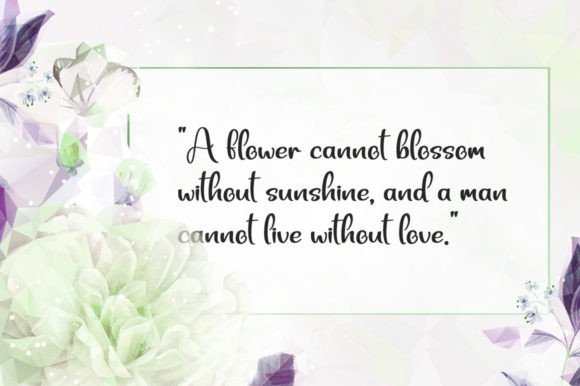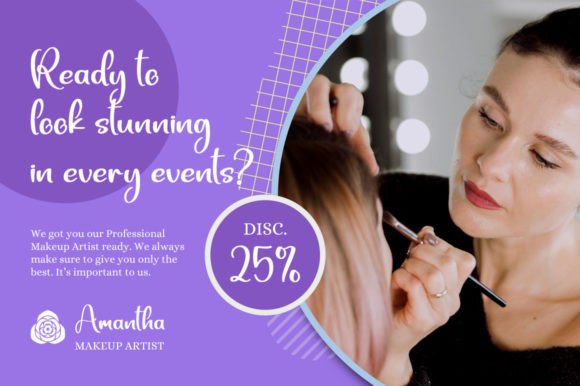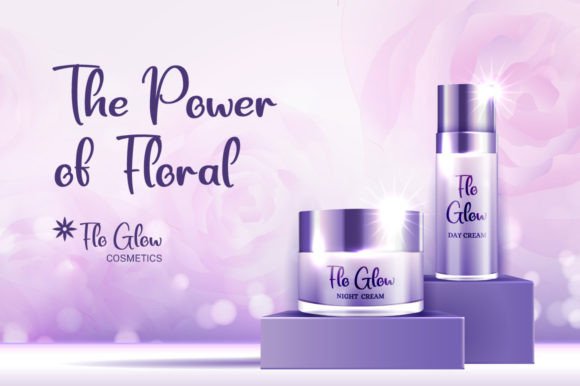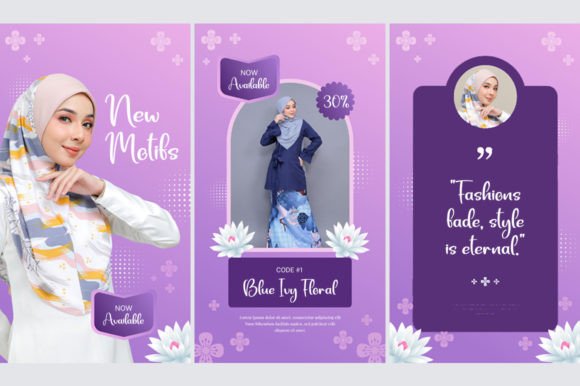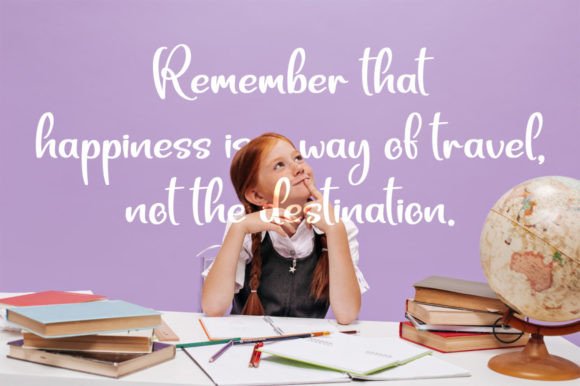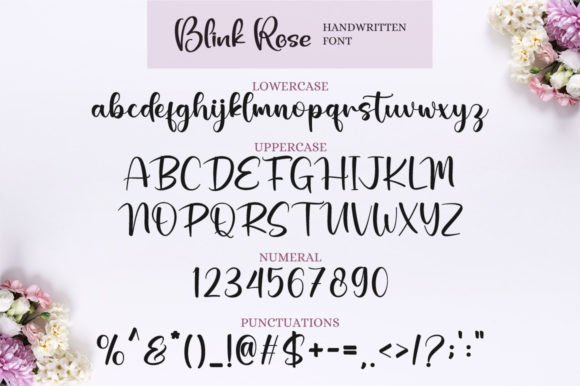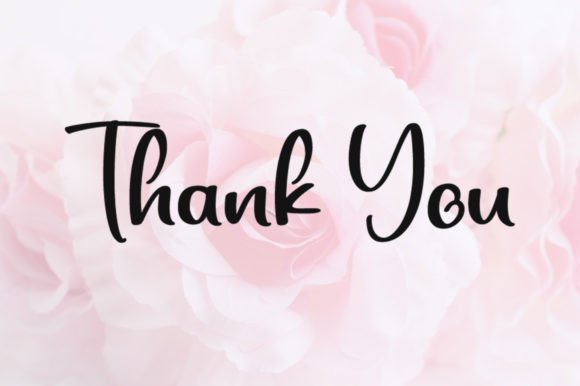
Blink Rose Font
About Blink Rose Font
Blink Rose is a lovely and timeless handwritten font. It is the best choice for creating eye-catching logos, branding, and quotes.